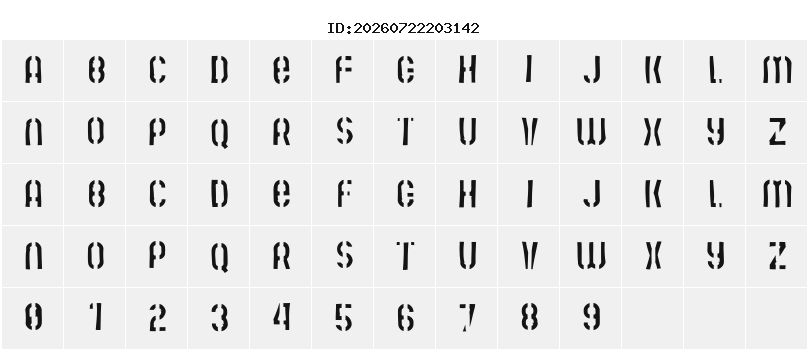
Mute Fruit Skimpy Krash Preview
About Mute Fruit Skimpy Krash.ttf
Mute Fruit Skimpy Krash.ttf is a modern, elegant sans-serif font designed for ultimate readability and visual harmony. Perfect for branding, headlines, web design, and print materials.